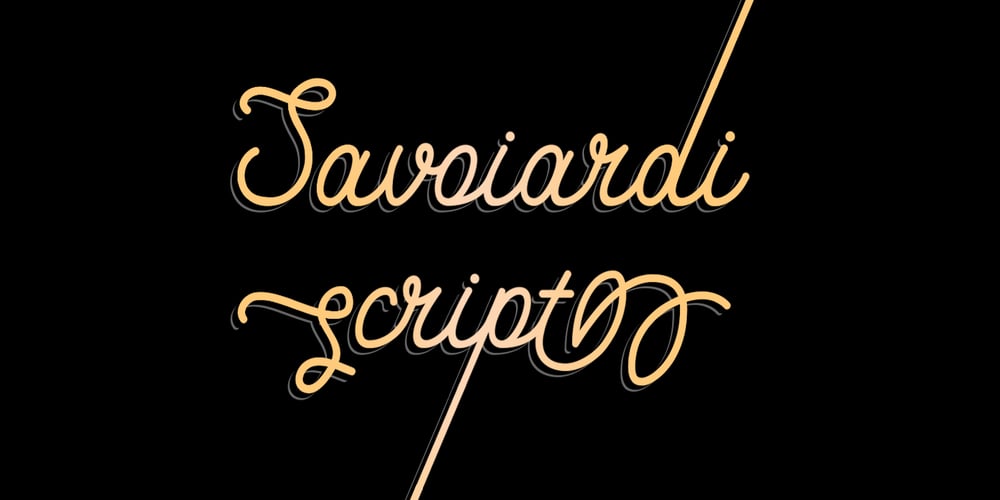
Savoiardi
Savoiardi font
Savoiardi Font Family was designed by Alex Etewut and published by Etewut. Savoiardi contains 4 styles and family package options. Savoiardi font was created specially for the opera ‘Ariadne auf Naxos’ as alternative subtitles. Later more styles were added to complete the family.